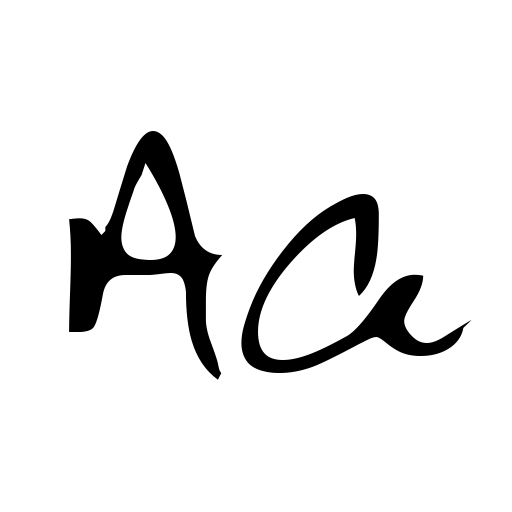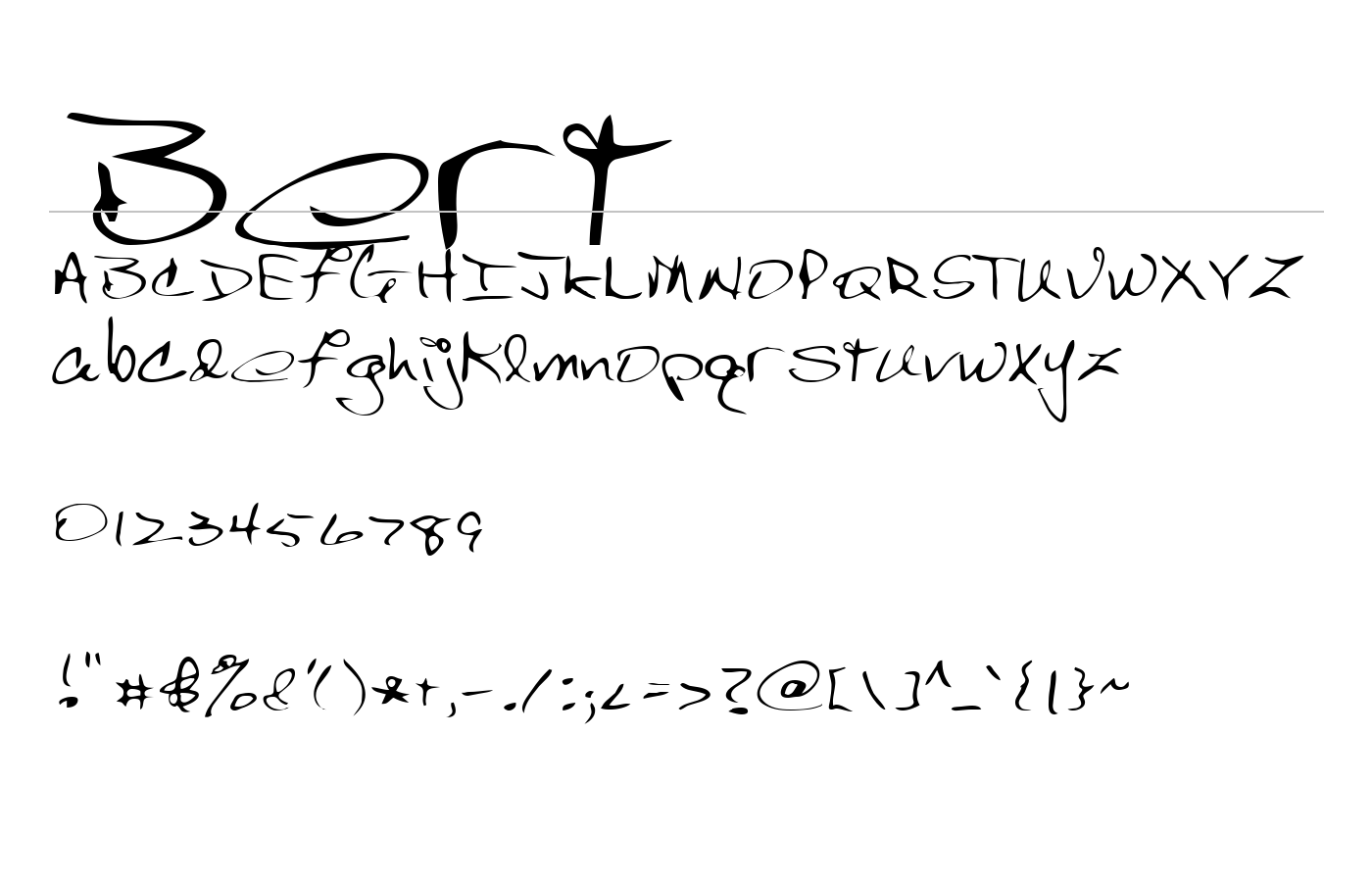
Bert Font is a quirky, hand-drawn script with an irregular, playful style that gives it a unique, artistic personality. Its thin strokes, uneven letterforms, and casual flow make it perfect for creative projects, casual branding, or artistic headlines that want to stand out with a personal touch. This font works best where character and individuality are key, such as in posters, invitations, or expressive design layouts.
Bert Font